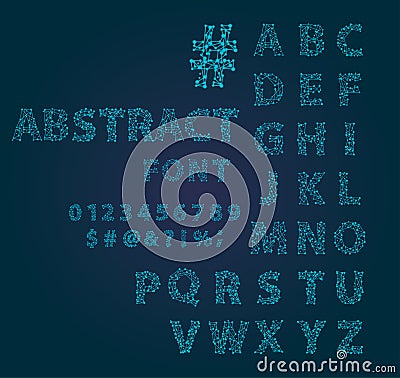
Font Space Alphabet Typeface Script With Minimal Design Typographic Modern Graphic Vector Illustration.
Font space alphabet typeface script with minimal design typographic modern graphic vector illustration. Vector Illustration
Font space alphabet typeface script with minimal design typographic in a set modern minimalistic graphic vector illustration. Creative digital typeset vibrant word beautiful galaxy game art.